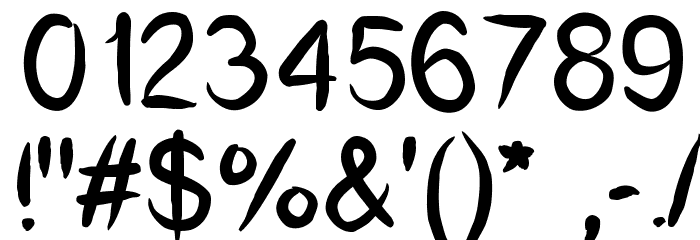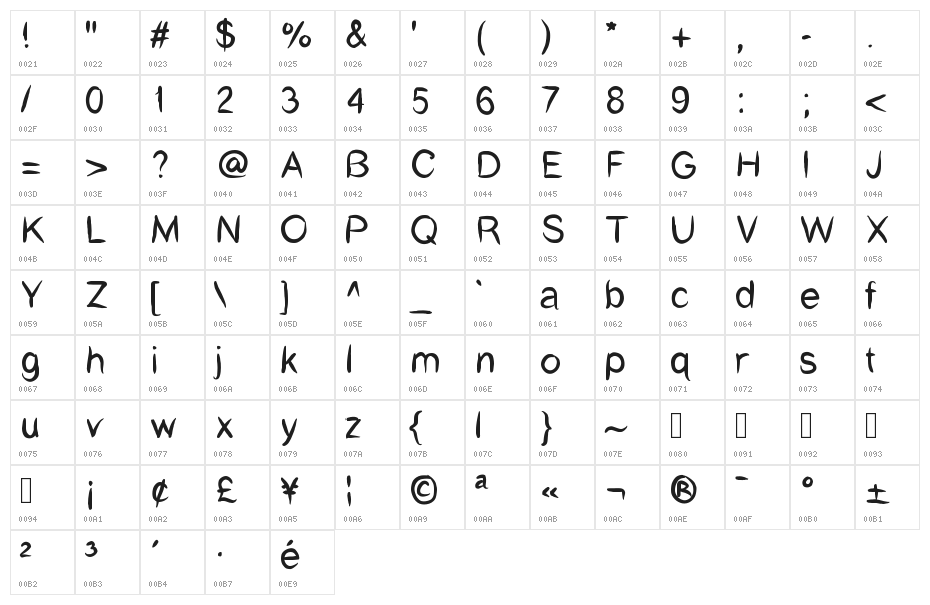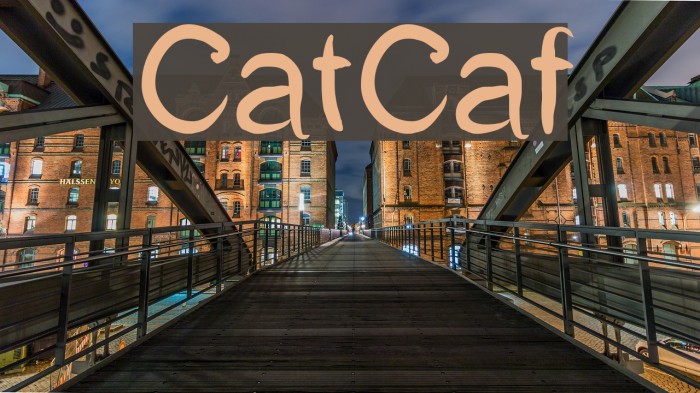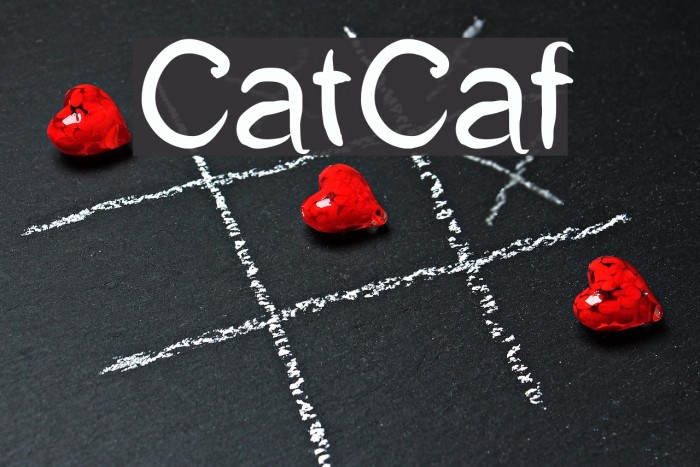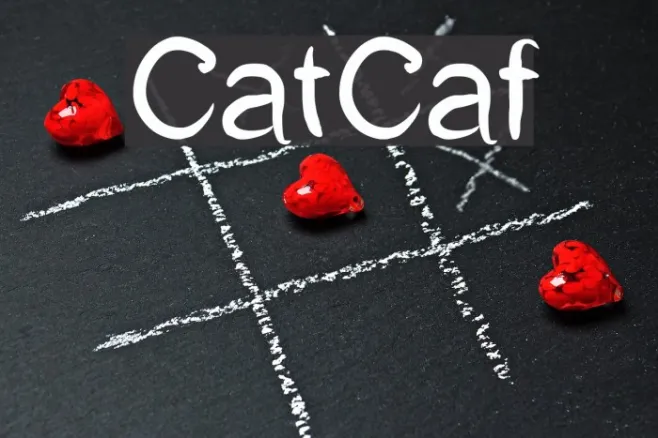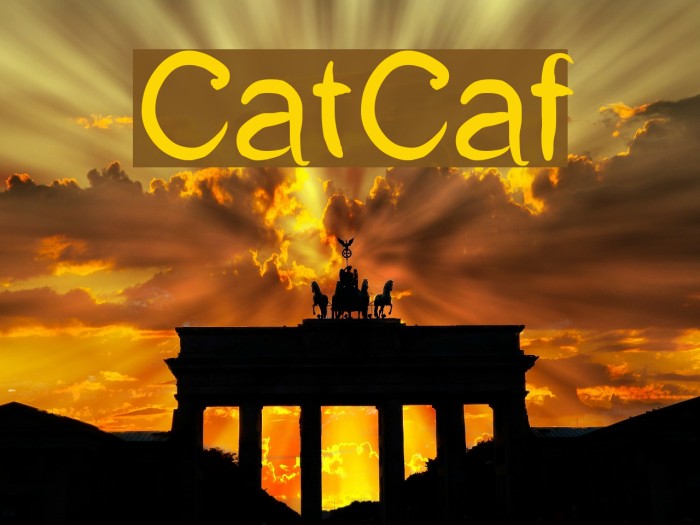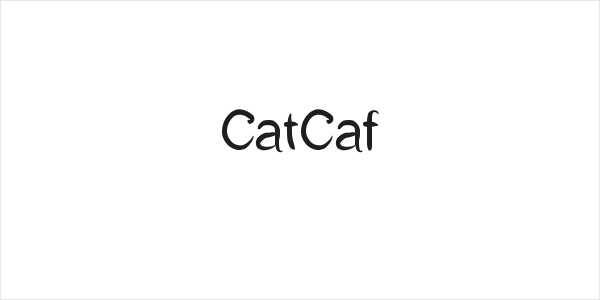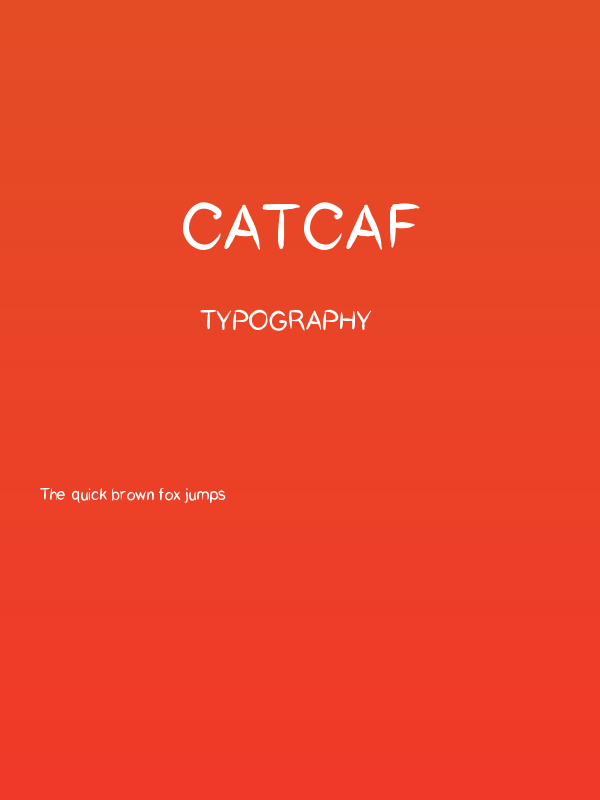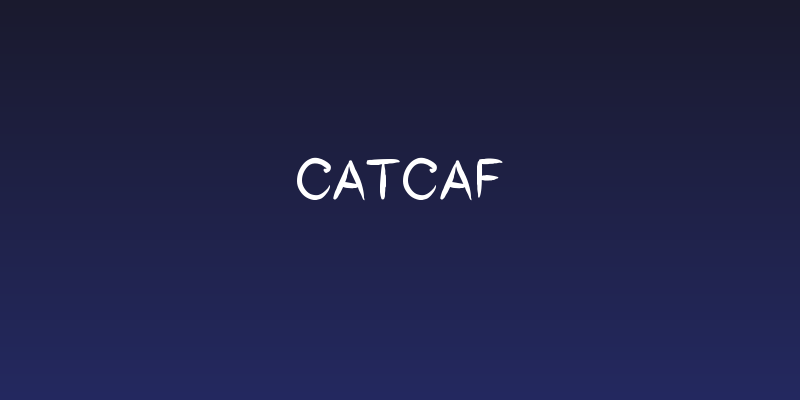
CatCaf Font
CatCaf Description
This playful and whimsical font features a hand-drawn aesthetic with irregular strokes, giving it a casual and friendly appearance. The letters are slightly uneven, adding to its charm and making it ideal for informal and creative projects. The uppercase and lowercase letters maintain a consistent style, with rounded edges and a slightly exaggerated form. Numbers and special characters are included, matching the playful style of the alphabet. This font is perfect for projects that require a touch of personality and creativity, such as children's books, greeting cards, or playful branding.
| Proposed Projects | Ideal for children's books, greeting cards, playful branding, and creative projects. |